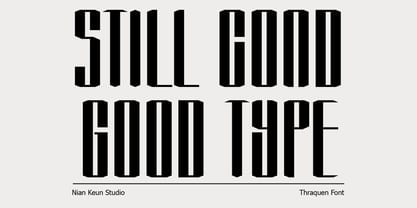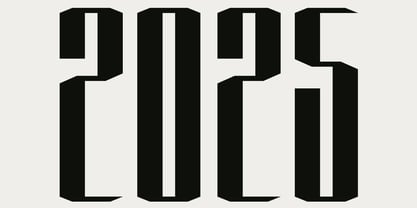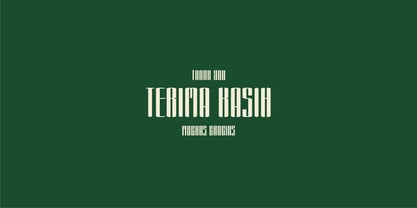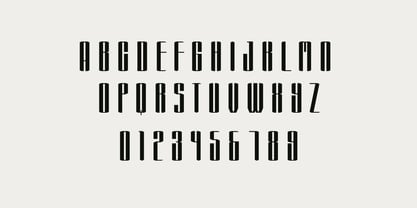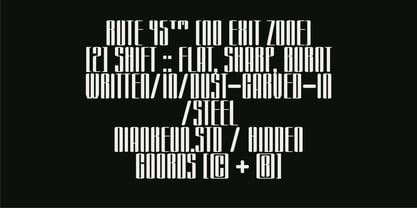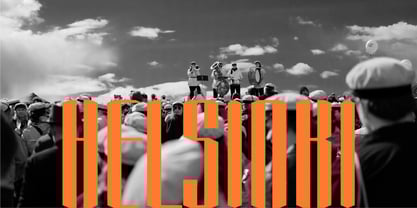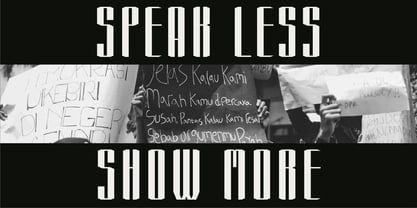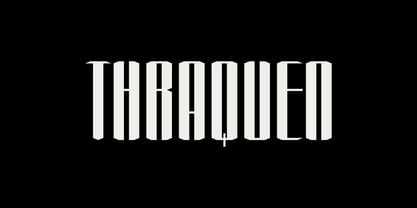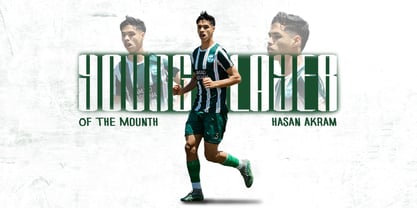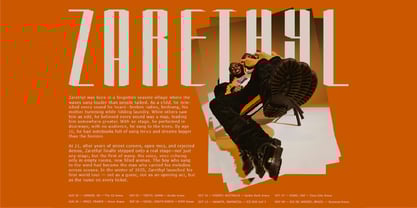
Thraquen
by Nian Keun Studio
The Thraquen Font Family was designed by Mugi Raharjo and published by Nian Keun Studio. Thraquen contains 1 styles.
Thraquen is a regular, futuristic condensed display font designed to make an impact where space is limited but style is non-negotiable. Its tall, narrow letterforms are built for posters, editorials, branding, and headlines that demand attention with minimal width.
Crafted with precision and architectural finesse, THRAQUEN walks the line between modern tech aesthetics and brutalist graphic sensibilities. Ideal for sci-fi titles, album artwork, cutting-edge fashion branding, or even glitch-heavy interfaces, this font offers powerful presence without sacrificing clarity.
Font Features
* All caps / uppercase only
* Tall, tight spacing
* Geometric construction
* Modern and futuristic feel
* Strong vertical rhythm
Perfect For
* Poster design
* Music covers & festival branding
* Techno & sci-fi themes
* Web headers and hero text
* Zine layouts and urban fashion campaigns